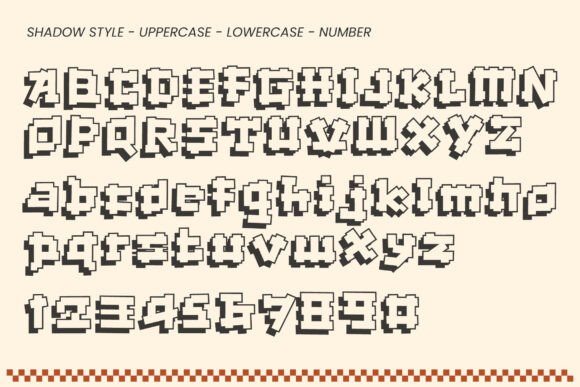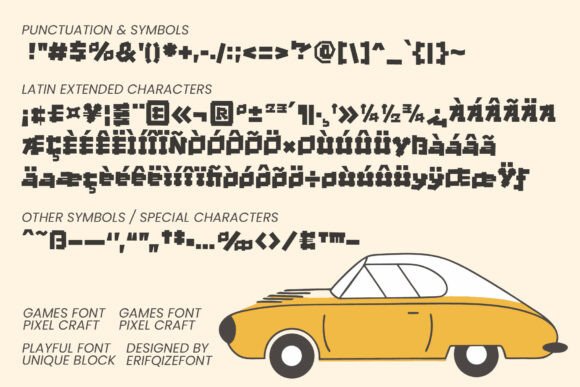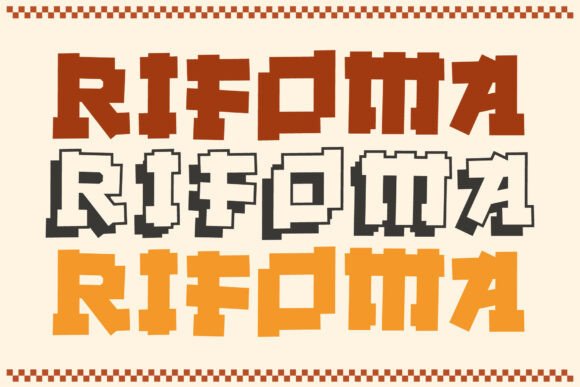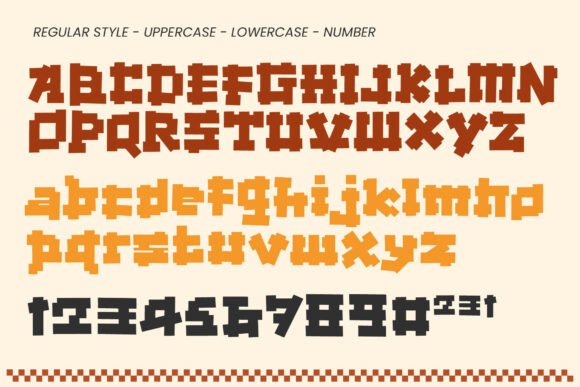
Introduction to Sense of Belonging Font Font
Fonts play a crucial role in design, and the Sense of Belonging Font font is a typeface that brings both character and versatility to any project. Whether you’re working on a branding project, a website, or a print design, the Sense of Belonging Font font offers a unique style that can elevate your work.
Sense of Belonging is a playful block-style display font inspired by pixel aesthetics, game typography, and bold geometric construction.
Its chunky, modular letterforms create a strong visual presence while maintaining a fun and approachable character Designed with a pixel-craft spirit, this typeface works perfectly for gaming visuals, digital projects, posters, branding, merchandise, childrenβs themes, and creative media that need a bold and distinctive typographic voice.
The Sense of Belonging Font font is more than just a typeface β it’s a design tool that helps you communicate your message with style and clarity. Its unique character set and versatile design make it suitable for a wide range of applications, from elegant invitations to bold headlines.
With its carefully crafted letterforms and balanced proportions, the Sense of Belonging Font font ensures readability and visual appeal across all mediums.
What makes Sense of Belonging Font font special?
The Sense of Belonging Font font stands out with its unique design, exceptional readability, and versatility across various design applications.